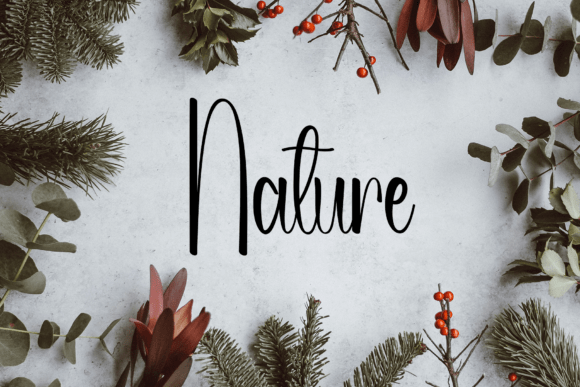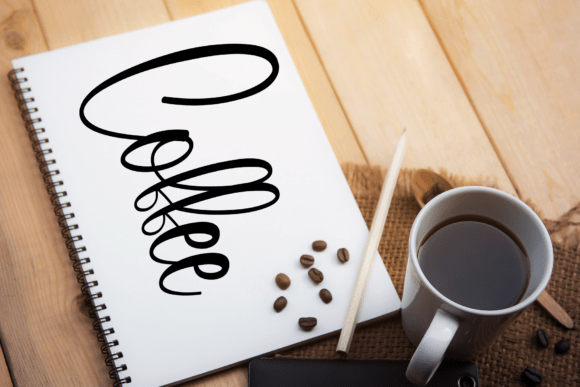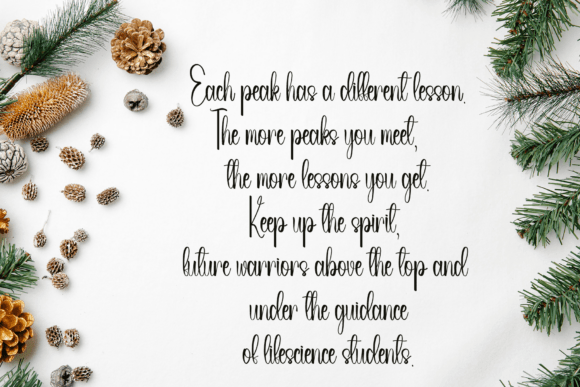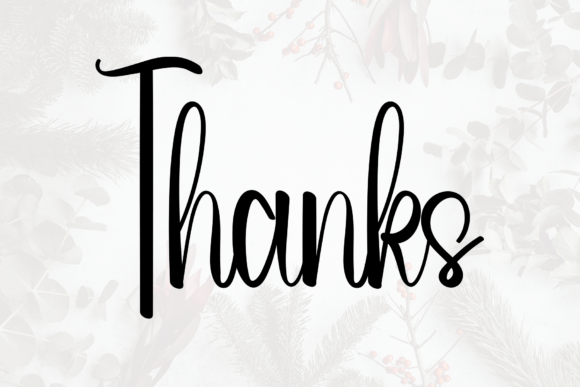
Embracing the Imperfections of Handwritten Design
There’s something special about the first time you meet a font that feels like home. For designers, it’s the moment when a typeface speaks to you in a way that no other can. For me, that moment came when I stumbled upon the Aututors Font – a charming handwritten font that exudes a sense of heartfelt perfection. Its smooth strokes and organic lines are the epitome of relaxed elegance, making it perfect for a variety of design projects.
Whether you’re creating a brand identity, designing an invitation, or crafting social media graphics, Aututors Font is a valuable addition to your toolkit. Its versatility and charm make it an excellent choice for designers who want to add a touch of personality to their work. In this article, we’ll delve into the world of Aututors Font and explore what makes it a standout in the world of typography.
Aututors Font Key Features
- Font Size: 3,000+ glyphs, supporting a wide range of languages
- Unique Characteristics: Handcrafted, elegant script font with unique ligatures and flourishes
- Font Style: Script, Calligraphy, Elegant, Handwritten
Designer Review: Aututors Font
Overall, I’d say Aututors Font has its moments, but it’s not a game-changer. Let’s break it down.
- Clean and modern aesthetic, perfect for digital products and interfaces.
- Open-type font with a wide range of languages supported, making it versatile for global projects.
- Legible at various font sizes, which is a must-have for digital typography.
- May lack the uniqueness and character of more experimental fonts, which could make it feel a bit bland.
- No bold or italic variations available, which might limit its use in certain contexts.
- Not ideal for print materials or documents where a more dramatic font is required.
Aututors Font is a solid, dependable choice for digital projects, but it may not stand out from the crowd. If you’re looking for a clean and modern font that gets the job done, it’s worth considering. However, if you need something more distinctive or versatile, you may want to explore other options.
Aututors Font is ideal for creating bold and eye-catching headings, titles, and logos.
Use it to add a professional touch to your designs and make them stand out.
For best results, pair Aututors Font with a clean and simple font for body text.
Open Sans is a popular sans-serif font that is highly legible and versatile. It is suitable for body text and can be used in a variety of contexts, from digital products to print materials. Compared to Aututors Font, Open Sans is more modern and has a cleaner design, making it a better choice for modern designs.
Lato is a sans-serif font that is highly legible and elegant. It is suitable for body text and can be used in a variety of contexts, from digital products to print materials. Compared to Aututors Font, Lato has a more refined design and is more suitable for designs that require a touch of sophistication.
Montserat is a sans-serif font that is highly legible and urban. It is suitable for body text and can be used in a variety of contexts, from digital products to print materials. Compared to Aututors Font, Montserrat has a more rugged design and is more suitable for designs that require a touch of industrial chic.
Inter is a sans-serif font that is highly legible and versatile. It is suitable for body text and can be used in a variety of contexts, from digital products to print materials. Compared to Aututors Font, Inter has a more modern design and is more suitable for designs that require a clean and minimalist aesthetic.
Exploring Aututors Font in Creative Projects
Project 1: Whimsical Quote Wall
A vibrant and colorful quote wall featuring inspirational quotes in Aututors Font, perfect for a home decor or office space.
To use Aututors Font in this project:
- Choose a mix of bold and cursive quotes in Aututors Font.
- Combine with colorful backgrounds and patterns to create a lively atmosphere.
- Experiment with different font sizes and arrangements to create visual interest.